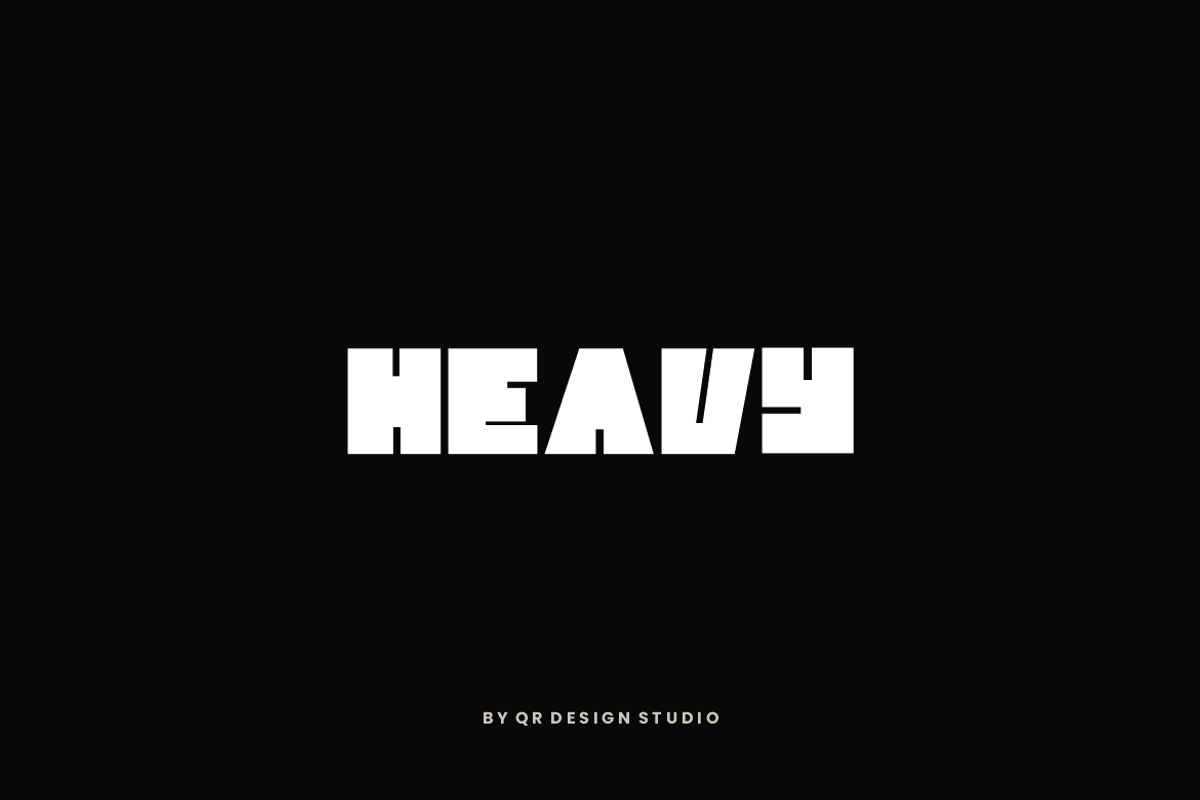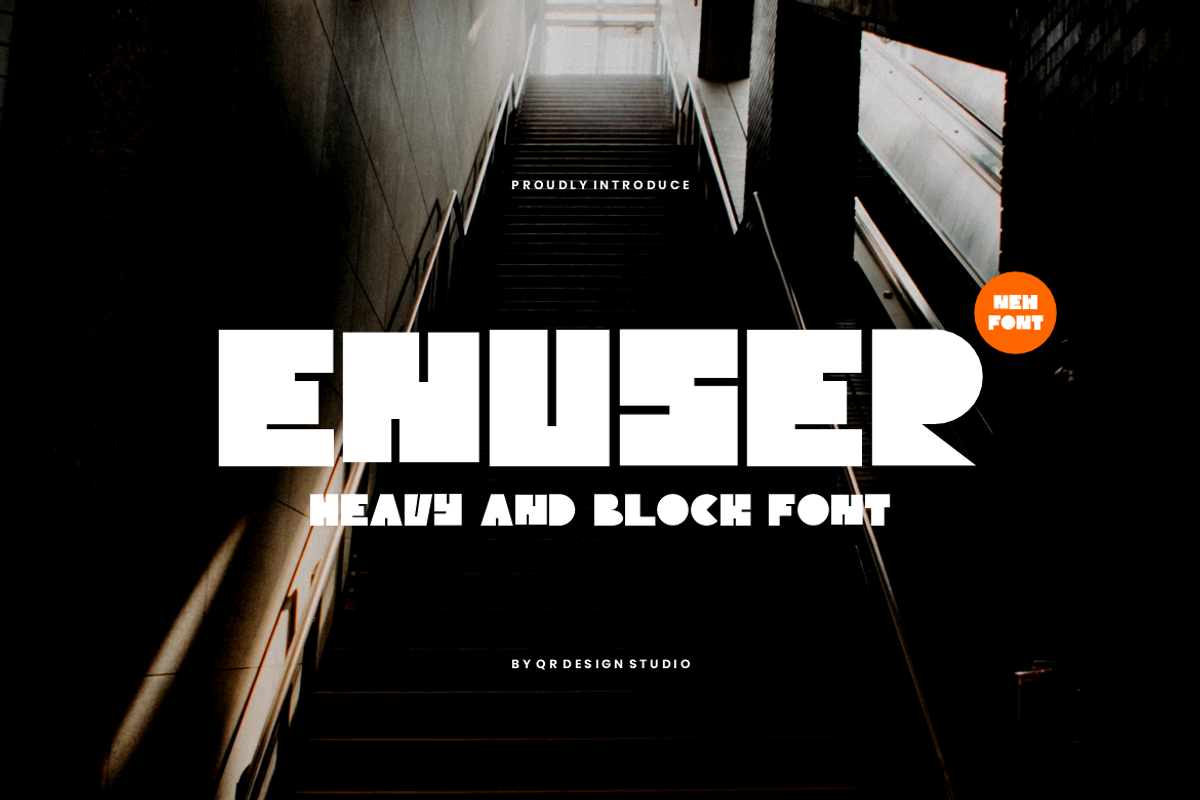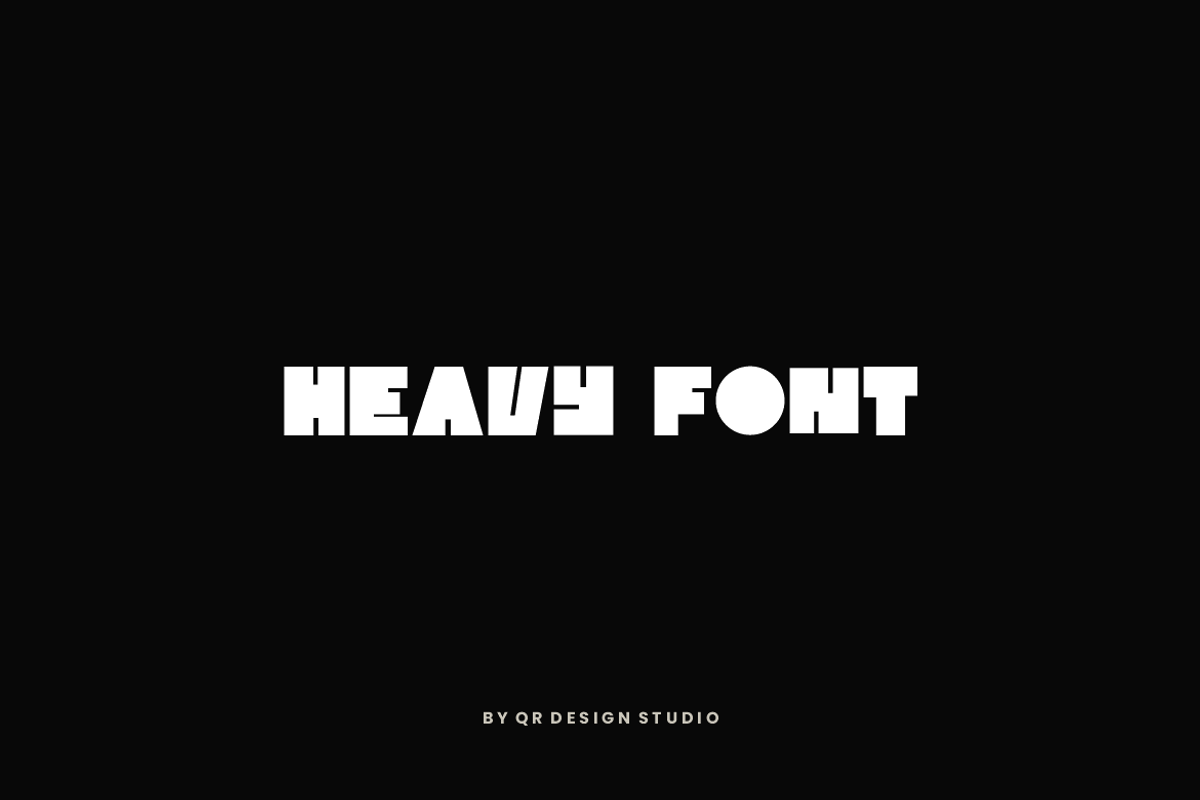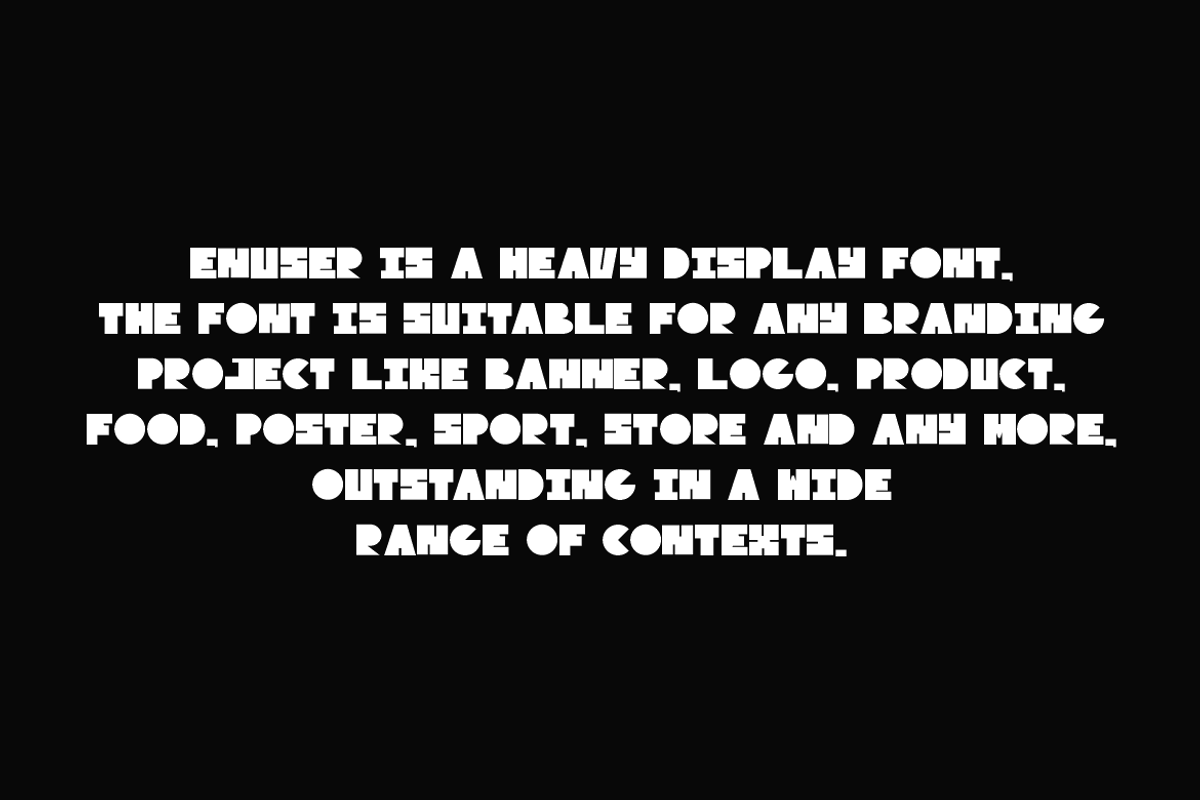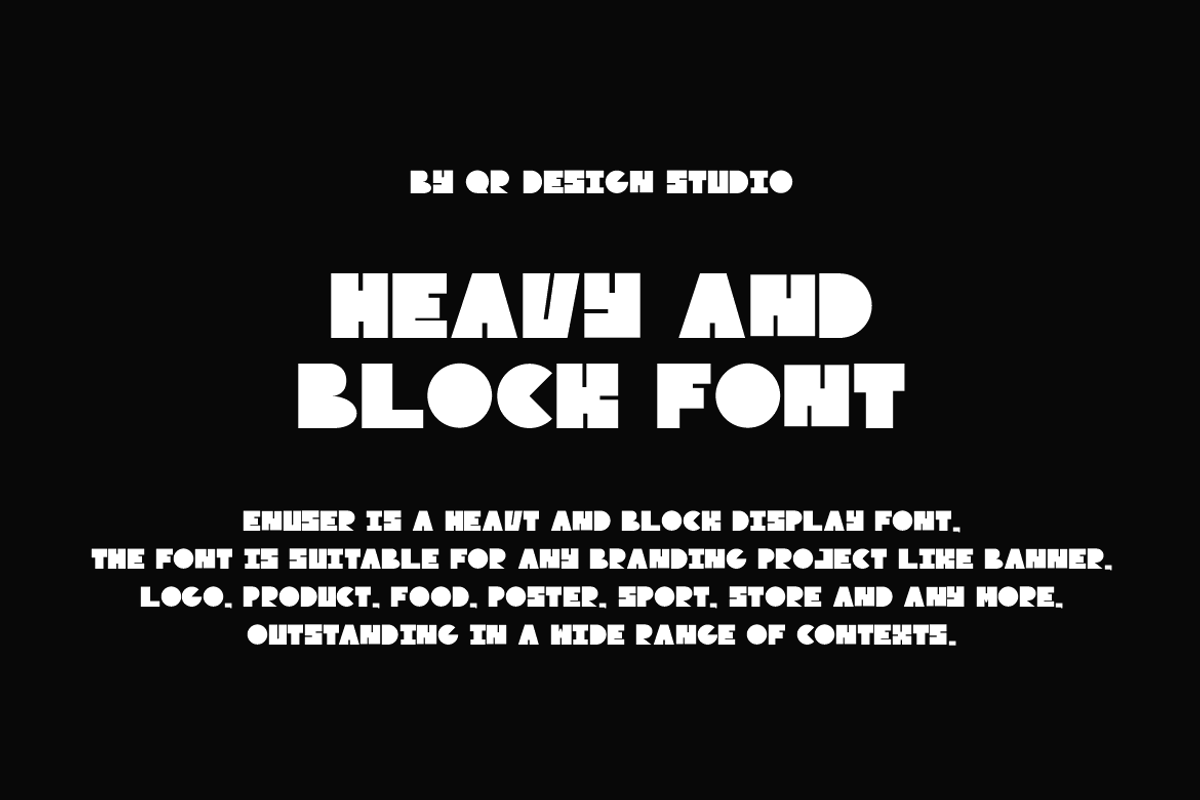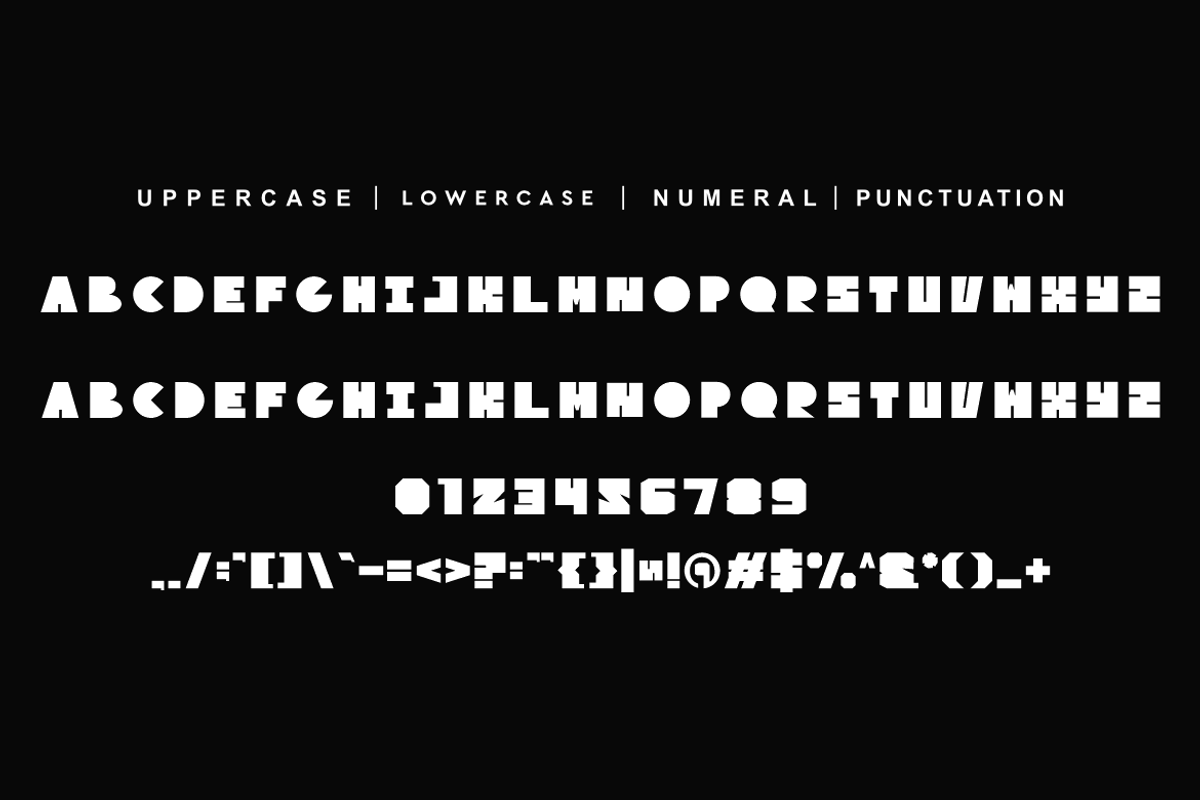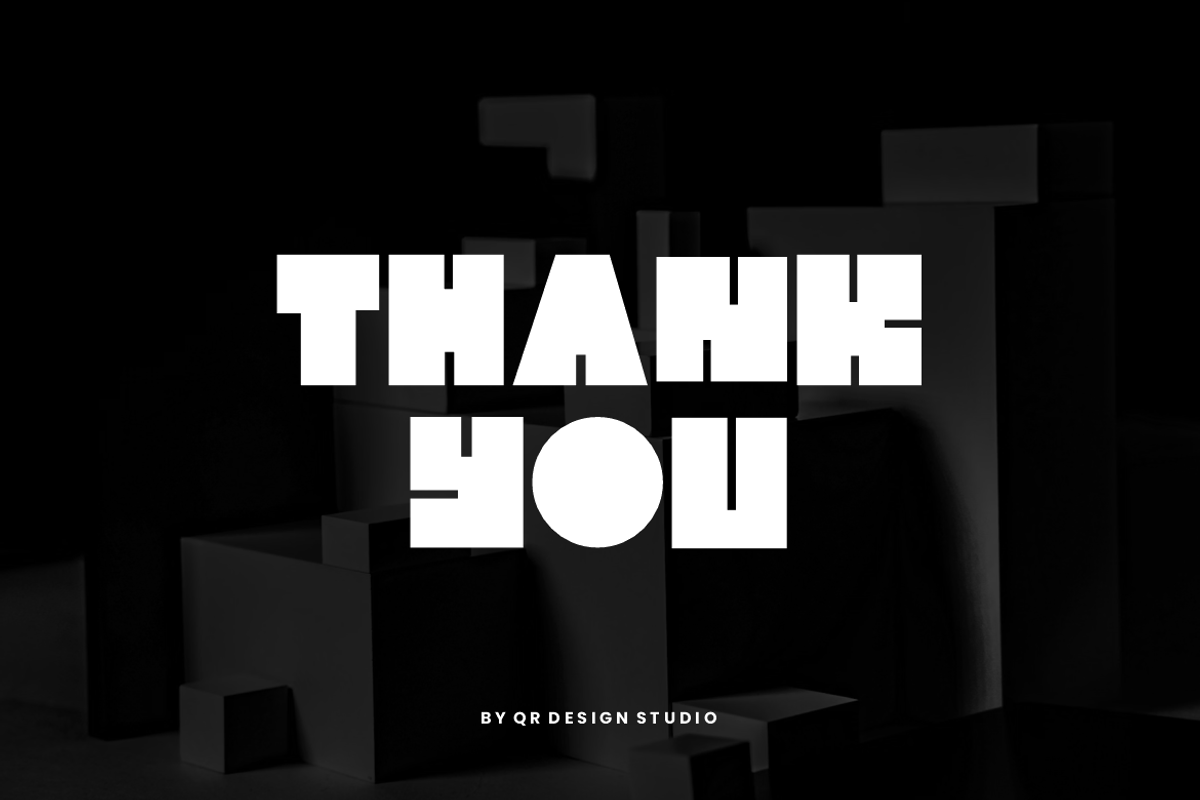
Enuser - Heavy & Block Font
Enuser Font is a bold and authentic display font. The font is suitable for any branding project like poster, logo, sport, and many more. Outstanding in a wide range of contexts.